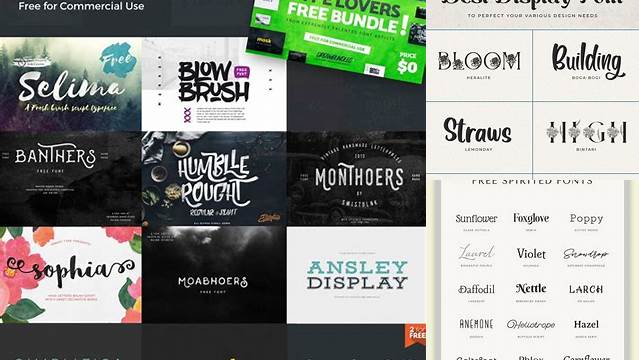
Top Free Display Fonts: Stunning Typography For Your Projects
Hey everyone! Finding the perfect font can be a game-changer for your designs. Especially when you're looking for something that really pops. So, let's dive into the best free display fonts that can make your projects shine. We're going to explore a range of styles – from bold and modern to quirky and vintage – all available for free!
What are Display Fonts?
Display fonts, guys, are those eye-catching fonts designed to grab attention. They're not your typical body text fonts like Times New Roman or Arial. Instead, they're meant for headlines, posters, logos, and anything else where you need a font that makes a statement. Think of them as the rockstars of the typography world.
1. Bold and Impactful Display Fonts
When you need a font that screams power and confidence, bold display fonts are the way to go. These fonts are characterized by their thick strokes and strong presence, making them perfect for headlines that demand attention. Consider using them in posters, website headers, or any design where you want to make a big impact. A bold font can instantly convey a sense of importance and authority, ensuring your message is seen and remembered. Experiment with different weights and styles within the bold category to find the perfect fit for your project. Always ensure the font complements the overall aesthetic and doesn’t overpower the design. The right bold font can be a game-changer, transforming a simple layout into a visually stunning masterpiece.
2. Modern Sans-Serif Display Fonts
Modern sans-serif display fonts offer a clean, minimalist look that's perfect for contemporary designs. These fonts often feature geometric shapes and a sleek appearance, making them ideal for tech companies, startups, and brands that want to project a sense of innovation. The simplicity of sans-serif fonts ensures readability while still maintaining a stylish edge. When using modern sans-serif fonts, pay attention to kerning and spacing to achieve a polished, professional look. These fonts work well in digital applications, such as websites and apps, but can also be effective in print materials like brochures and business cards. With their versatility and timeless appeal, modern sans-serif fonts are a staple in the designer's toolkit.
3. Vintage and Retro Display Fonts
For a touch of nostalgia and charm, vintage and retro display fonts are an excellent choice. These fonts often evoke a sense of history and craftsmanship, reminiscent of old posters, advertisements, and signage. Vintage fonts can add character and personality to your designs, making them stand out from the crowd. They're perfect for projects that aim to capture a specific era or evoke a sense of authenticity. When using vintage fonts, consider pairing them with complementary colors and graphics to enhance the overall vintage aesthetic. Whether you're designing a logo for a retro-themed business or creating a poster for a vintage event, these fonts can help you achieve the perfect look and feel. Don't be afraid to experiment with different styles and weights to find the font that best captures the essence of your project.
4. Handwritten and Script Display Fonts
Handwritten and script display fonts bring a personal and artistic touch to your designs. These fonts mimic the look of handwriting, adding a sense of warmth and authenticity. They're perfect for invitations, greeting cards, and projects that require a human touch. The fluidity and elegance of script fonts can add a touch of sophistication, while more casual handwritten fonts can convey a sense of playfulness. When using these fonts, be mindful of readability, especially in smaller sizes. Pair them with simpler fonts for body text to ensure a balanced and harmonious design. Whether you're creating a wedding invitation or designing a logo for a handcrafted product, handwritten and script fonts can help you create a unique and memorable impression.
5. Geometric Display Fonts
Geometric display fonts are characterized by their precise shapes and clean lines. These fonts often feature perfect circles, squares, and triangles, creating a sense of order and structure. They're ideal for designs that require a modern and technical feel. Geometric fonts can be used in logos, posters, and website headers to convey a sense of innovation and precision. When using geometric fonts, pay attention to the spacing and alignment to maintain a cohesive and balanced design. These fonts work well in a variety of applications, from branding to editorial design, offering a versatile and contemporary look. Whether you're designing a logo for a tech company or creating a poster for a science event, geometric fonts can help you achieve a sleek and sophisticated aesthetic.
6. Decorative and Ornamental Display Fonts
Decorative and ornamental display fonts are all about adding flair and personality to your designs. These fonts often feature intricate details, embellishments, and unique shapes, making them perfect for projects that require a touch of whimsy and creativity. They can be used in posters, invitations, and logos to create a memorable and eye-catching impression. When using decorative fonts, be mindful of readability and avoid using them in large blocks of text. Pair them with simpler fonts for body text to ensure a balanced and harmonious design. Whether you're designing a poster for a music festival or creating a logo for a boutique shop, decorative fonts can help you express your creativity and make your designs truly stand out.
7. Rounded Display Fonts
Rounded display fonts offer a soft and friendly alternative to more angular fonts. These fonts feature rounded corners and smooth curves, creating a sense of warmth and approachability. They're ideal for designs that aim to convey a sense of comfort and trust. Rounded fonts can be used in logos, websites, and marketing materials to create a welcoming and inviting impression. When using rounded fonts, pay attention to the spacing and alignment to maintain a cohesive and balanced design. These fonts work well in a variety of applications, from children's books to healthcare websites, offering a versatile and contemporary look. Whether you're designing a logo for a family-friendly business or creating a website for a wellness center, rounded fonts can help you achieve a friendly and approachable aesthetic.
8. Slab Serif Display Fonts
Slab serif display fonts are characterized by their thick, block-like serifs, adding a sense of weight and stability to your designs. These fonts are often used in headlines, posters, and logos to create a bold and impactful impression. Slab serif fonts can convey a sense of strength and reliability, making them ideal for brands that want to project a sense of authority. When using slab serif fonts, pay attention to the spacing and alignment to maintain a cohesive and balanced design. These fonts work well in a variety of applications, from vintage-inspired designs to modern layouts, offering a versatile and timeless look. Whether you're designing a poster for a classic event or creating a logo for a traditional business, slab serif fonts can help you achieve a strong and memorable aesthetic.
9. Distorted and Glitch Display Fonts
Distorted and glitch display fonts add a unique and edgy touch to your designs. These fonts feature intentional imperfections, distortions, and glitches, creating a sense of disruption and innovation. They're perfect for projects that aim to challenge conventions and push boundaries. Distorted fonts can be used in posters, album covers, and website headers to create a visually striking and unconventional impression. When using distorted fonts, be mindful of readability and avoid using them in large blocks of text. Pair them with simpler fonts for body text to ensure a balanced and harmonious design. Whether you're designing a poster for an experimental art exhibition or creating a logo for a tech startup, distorted fonts can help you express your creativity and make your designs truly stand out.
10. Outline Display Fonts
Outline display fonts offer a sleek and modern look, characterized by their hollowed-out shapes and clean lines. These fonts are perfect for designs that require a minimalist and contemporary feel. Outline fonts can be used in logos, posters, and website headers to create a subtle yet impactful impression. When using outline fonts, pay attention to the thickness of the lines and the spacing between the letters to maintain readability and visual appeal. These fonts work well in a variety of applications, from branding to editorial design, offering a versatile and stylish look. Whether you're designing a logo for a fashion brand or creating a poster for a design conference, outline fonts can help you achieve a sophisticated and modern aesthetic.
11. Best Free Fonts for Headlines
For headlines that grab attention, you need fonts that are bold, clear, and impactful. Look for fonts with strong letterforms and good readability, even at large sizes. Sans-serif fonts often work well for headlines, as they tend to be clean and modern. Experiment with different weights and styles to find the perfect font that matches your brand's personality. Free options like Montserrat, Open Sans, and Roboto are great starting points.
12. Top Free Fonts for Logos
The font you choose for your logo plays a crucial role in shaping your brand's identity. It should be unique, memorable, and reflective of your brand's values. Consider fonts with distinct characteristics and a strong visual presence. Script fonts can add elegance, while geometric fonts convey a sense of modernity. Ensure the font is scalable and legible in various sizes. Some popular free logo fonts include Bebas Neue, Raleway, and Lato.
13. Free Fonts for Posters
Posters require fonts that are eye-catching and easy to read from a distance. Bold and decorative fonts can make your posters stand out, but it's essential to balance aesthetics with readability. Use contrasting colors to enhance visibility. Experiment with different font pairings to create visual interest. Free fonts like Oswald, Anton, and Impact are excellent choices for posters.
14. Free Fonts for Websites
Choosing the right fonts for your website can significantly impact user experience. Opt for fonts that are legible on screens and complement your website's design. Sans-serif fonts are generally preferred for body text due to their clarity. Use display fonts sparingly for headlines and headings to add visual appeal. Consider Google Fonts, which offers a wide range of free and web-friendly fonts, including Open Sans, Lato, and Roboto.
15. Free Fonts for Branding
Branding requires fonts that are consistent with your brand's image and values. Select fonts that reflect your brand's personality and target audience. Consider the font's legibility, versatility, and scalability. Use a combination of display and body text fonts to create a cohesive visual identity. Free fonts like Montserrat, Raleway, and Poppins are popular choices for branding projects.
16. Unique Display Fonts
If you're looking for something out of the ordinary, explore unique display fonts that stand out from the crowd. These fonts often feature unconventional letterforms, intricate details, and experimental designs. Use them sparingly to make a statement. Examples include Black Diamond, a bold and futuristic font, and Carrois Gothic, a vintage-inspired font with a touch of elegance.
17. Best Free Fonts for Commercial Use
When using free fonts for commercial projects, it's crucial to ensure they come with the appropriate licenses. Look for fonts that are licensed under the SIL Open Font License (OFL), which allows for free commercial use. Some reliable sources for free commercial fonts include Google Fonts, Font Squirrel, and DaFont. Always double-check the license before using a font in your project.
18. Download Free Display Fonts
Downloading free display fonts is easy with the many resources available online. However, be cautious of downloading fonts from untrusted sources, as they may contain malware or lack proper licensing. Stick to reputable websites like Google Fonts, Font Squirrel, and DaFont. Once you've downloaded the font files, install them on your computer to start using them in your design projects.
19. How to Choose the Right Display Font
Choosing the right display font depends on several factors, including the project's purpose, target audience, and overall design aesthetic. Consider the font's readability, versatility, and compatibility with other fonts. Experiment with different options to find the perfect fit. Don't be afraid to mix and match fonts to create visual interest, but ensure they complement each other harmoniously.
20. Pairing Display Fonts with Body Fonts
Pairing display fonts with body fonts can be challenging, but it's essential for creating a balanced and harmonious design. Choose body fonts that are easy to read and complement the display font's style. Sans-serif fonts often work well with serif display fonts, and vice versa. Ensure the font sizes are appropriate for their respective roles. Use a font pairing tool or consult with a designer for guidance.
21. Free Bold Display Fonts
When you need to make a statement, free bold display fonts are your best friend! These fonts are designed to grab attention and convey a sense of strength. Imagine using them for a headline that really pops or a logo that stands out from the crowd. Fonts like Bebas Neue and Montserrat Extra Bold are fantastic choices for adding that extra oomph to your designs. Just remember, with great boldness comes great responsibility – use them wisely to avoid overwhelming your audience!
22. Free Italic Display Fonts
Sometimes, a subtle slant can make all the difference. Free italic display fonts add a touch of elegance and sophistication to your projects. They're perfect for emphasizing key words or phrases or adding a bit of flair to your designs. Think of them as the whisper of the font world, adding a delicate touch without overpowering the overall look. Fonts like Lato Italic and Open Sans Italic are great for achieving that subtle yet impactful effect.
23. Free Rounded Display Fonts
If you're going for a friendly and approachable vibe, free rounded display fonts are the way to go. These fonts have soft, smooth edges that make them feel more welcoming and inviting. They're perfect for designs aimed at children, or anything that needs a touch of warmth. Imagine using them for a logo that radiates friendliness or a website that feels cozy and inviting. Fonts like Nunito and Quicksand are excellent choices for achieving that soft and approachable look.
24. Free Condensed Display Fonts
Need to squeeze a lot of text into a small space? Free condensed display fonts are your solution. These fonts are designed to be narrow and compact, allowing you to fit more text without sacrificing readability. They're perfect for headlines, posters, and other designs where space is limited. Think of them as the Tetris pieces of the font world, helping you fit everything together perfectly. Fonts like Oswald and Roboto Condensed are great for maximizing your space.
25. Free Script Display Fonts
For a touch of elegance and personality, free script display fonts are hard to beat. These fonts mimic the look of handwriting, adding a personal and artistic touch to your designs. They're perfect for invitations, greeting cards, and anything that needs a human touch. Imagine using them for a wedding invitation that feels handwritten or a logo that exudes sophistication. Fonts like Pacifico and Great Vibes are excellent choices for adding that touch of elegance.
26. Free Vintage Display Fonts
Want to give your designs a retro vibe? Free vintage display fonts are the answer. These fonts evoke a sense of nostalgia and craftsmanship, reminiscent of old posters and advertisements. They're perfect for projects that aim to capture a specific era or evoke a sense of authenticity. Think of them as the time machines of the font world, transporting your designs back to a bygone era. Fonts like Playfair Display and Abril Fatface are great for achieving that vintage look.
27. Using Free Display Fonts in Graphic Design
Integrating free display fonts into your graphic designs can elevate your projects from ordinary to extraordinary. The key is to use them strategically. Employ them for headlines, logos, and standout elements where you want to capture immediate attention. Balance them with simpler, more readable fonts for body text to ensure a harmonious and accessible design. Experiment with different sizes, weights, and colors to see how the font interacts with your overall composition. With a keen eye and a bit of creativity, free display fonts can become your secret weapon for crafting visually stunning designs.
28. Legality of Free Display Fonts
Navigating the world of free fonts can sometimes feel like a legal minefield. Always check the licensing terms before using any font in your projects, especially for commercial purposes. Look for fonts licensed under the SIL Open Font License (OFL) or other permissive licenses that allow for commercial use. Beware of fonts that claim to be free but lack a clear license or come with restrictions. When in doubt, consult with a legal professional to ensure you're complying with all applicable copyright laws. Staying informed and cautious will help you avoid potential legal pitfalls and ensure you can use free display fonts with confidence.
29. Installing Free Display Fonts
Installing free display fonts on your computer is a straightforward process that unlocks a world of creative possibilities. First, download the font files from a reputable source, ensuring they are compatible with your operating system. Next, locate the font files on your computer and double-click them to open the font preview window. From there, simply click the "Install" button to add the font to your system. Once installed, the font will be available for use in all your favorite design software, allowing you to incorporate it seamlessly into your projects. Restart your design applications if you don't immediately see the new font in your font list.
30. Tips for Optimizing Display Font Usage
To make the most of display fonts, consider a few optimization tips. First, focus on readability, especially for headlines and key messages. Ensure that the font is easily legible, even at smaller sizes. Use display fonts sparingly to avoid overwhelming your designs. Experiment with kerning and letter spacing to achieve optimal visual balance. Test your designs on different devices and screen resolutions to ensure the font renders correctly. By paying attention to these details, you can enhance the impact of display fonts and create visually appealing and effective designs.